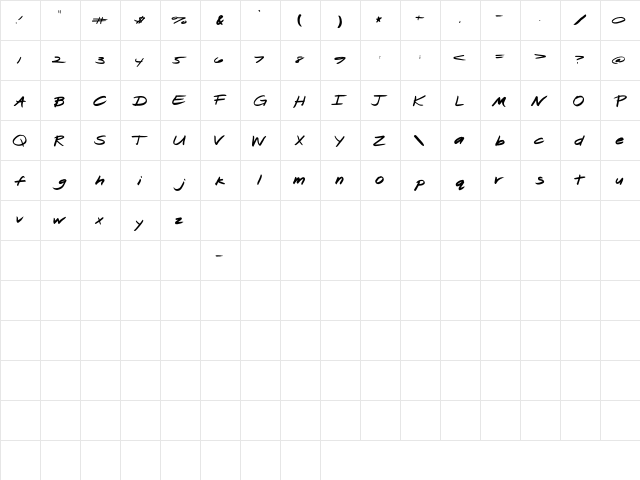
2Peas Paintbrush 2Peas Paintbrush
| Foundry | Two Peas in a Bucket |
| Designer | Designed by Melissa Baxter |
Design Context for 2Peas Paintbrush Typeface
2Peas Paintbrush flows with the natural rhythm of handwritten lettering, making it ideal for designs that call for warmth and personal expression.